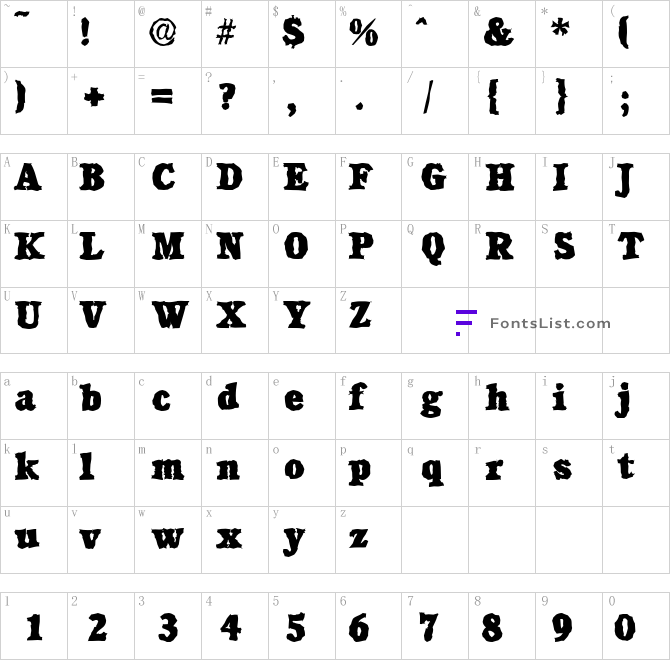
- Font Name:CalgaryRandom-Heavy
- Full Name:CalgaryRandom-Heavy-Regular
CalgaryRandom-Heavy-Regular.ttf is a very beautiful artistic font, CalgaryRandom-Heavy-Regular.ttf is widely used in the design and printing of various books and pictures,CalgaryRandom-Heavy-Regular.ttf has a strong visual impact,CalgaryRandom-Heavy-Regular.ttf is a commonly used font in newspapers, magazines and books, and is used in posters, e-commerce Poster design, store design, logo design, font design and other fields.CalgaryRandom-Heavy-Regular.